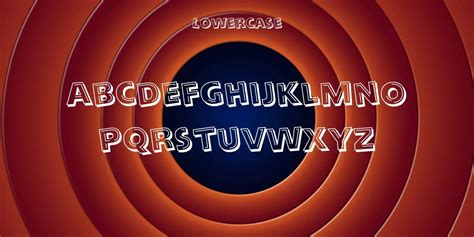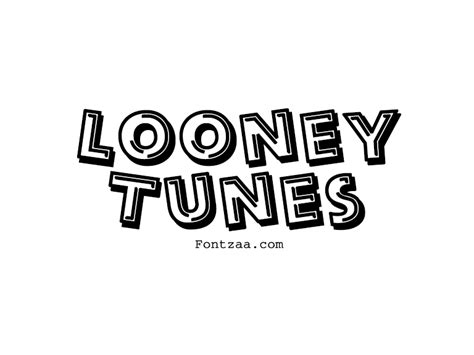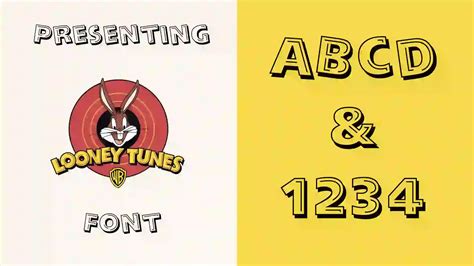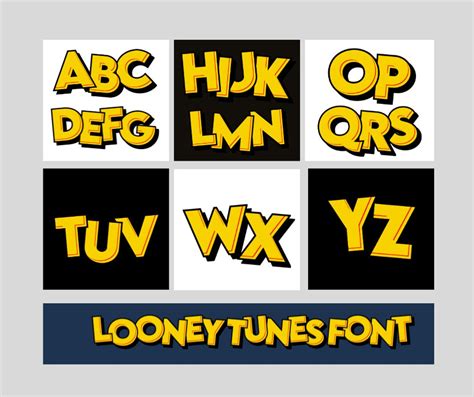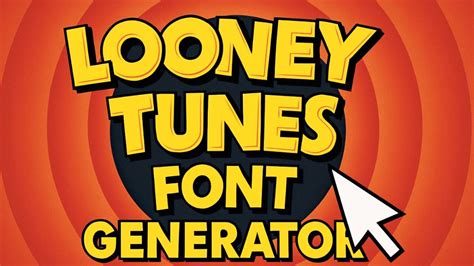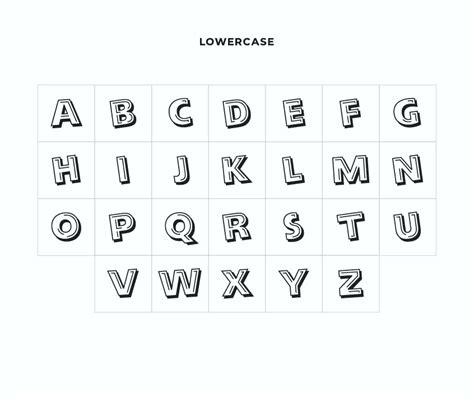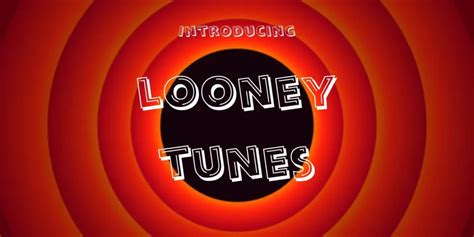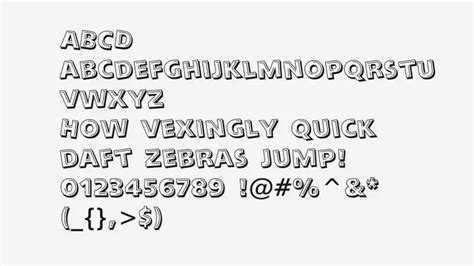
LOONEY TUNES FONT
The Looney Tunes font is a beloved and iconic font that has become synonymous with the classic animated characters and their adventures. This font is a true representation of the golden age of animation, bringing a touch of nostalgia and whimsy to any design. With its unique style and playful nature, it has become a popular choice for various creative projects, from logos and branding to web design and personal projects.
The font is inspired by the early cartoon characters and their distinctive hand-drawn style, capturing the essence of the 1930s and 1940s animation era. Its design features a mix of bold and thin strokes, creating a visually appealing and recognizable look. The font's versatility allows it to be used in a wide range of contexts, from adding a touch of humor to a serious design to creating a playful atmosphere for a children's project.
One of the key benefits of using the Looney Tunes font is its ability to evoke a sense of nostalgia and fun. It instantly transports users back to the golden age of animation, where characters like Bugs Bunny, Daffy Duck, and Elmer Fudd brought laughter and entertainment to audiences of all ages. This font is a powerful tool for designers and creators, allowing them to tap into the rich history of Looney Tunes and create visually appealing and memorable content.